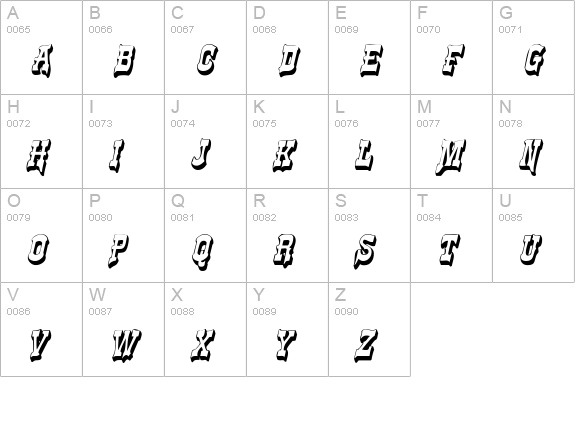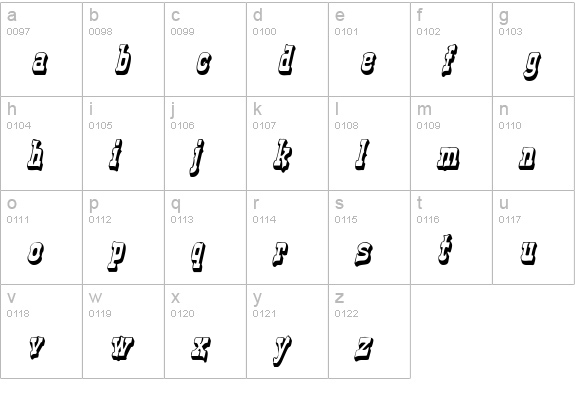
WesternShadow Italic Font Details
WesternShadow Italic is a distinctive, italic variant in the WesternShadow typeface family \xE2\x80\x94 well suited to design and typography projects.
Introducing WesternShadow Italic, a captivating and versatile font that effortlessly combines the ruggedness of the Wild West with a touch of modern elegance. This font is the perfect choice for designers, typographers, and creatives who seek to add a bold and daring flair to their projects. With its slanted and italicized characters, WesternShadow Italic exudes a sense of adventure and daring. Each letter is meticulously crafted to showcase the dynamic movement and energy reminiscent of a wild horse galloping across the open plains. The unique design of WesternShadow Italic brings a sense of authenticity to any design, whether it's used in logos, headlines, posters, or branding materials. Its versatility allows it to seamlessly blend into various themes, from vintage-inspired designs to contemporary and edgy projects. One of the most enticing features of WesternShadow Italic is that it is available for free! You heard it right – this extraordinary font can be freely downloaded at FontsMarket.com. This means that you can add this powerful tool to your creative arsenal without breaking the bank. FontsMarket.com, a trusted source for high-quality fonts, offers WesternShadow Italic as a gift to the design community. By making it freely available, they are empowering designers and artists to experiment, create, and bring their visions to life with this remarkable font. So, why wait? Unleash your creativity and download WesternShadow Italic today from FontsMarket.com. Embrace the spirit of the Wild West and infuse your designs with an irresistible sense of adventure and allure. Whether you're working on a personal project or a client's assignment, WesternShadow Italic is sure to leave a lasting impression and elevate your designs to new heights.